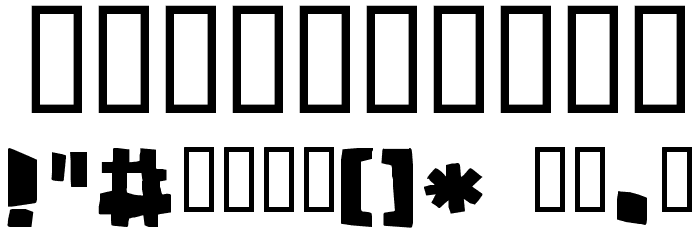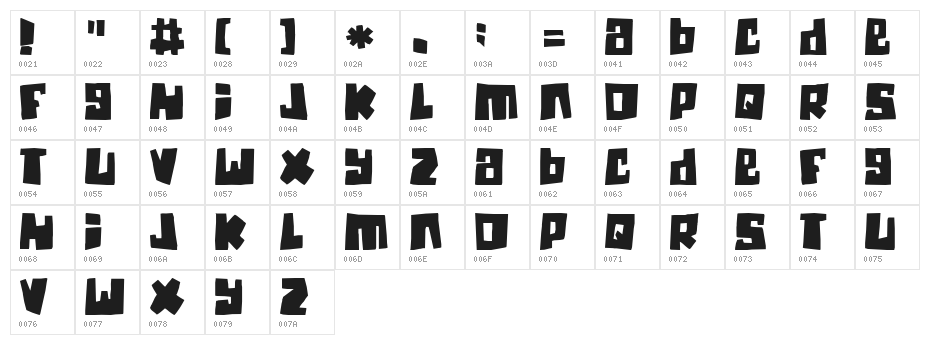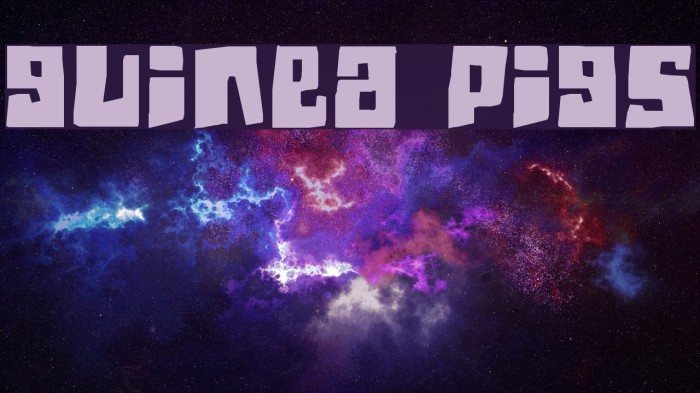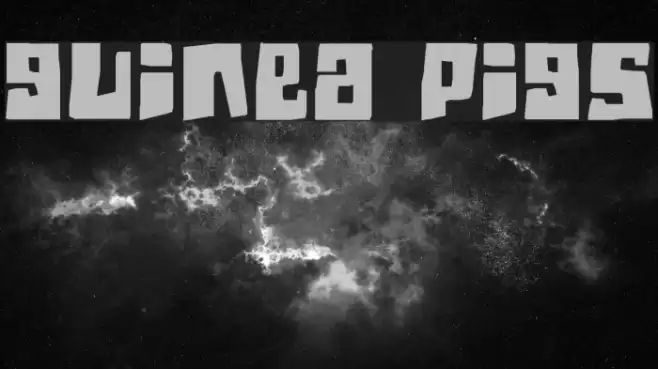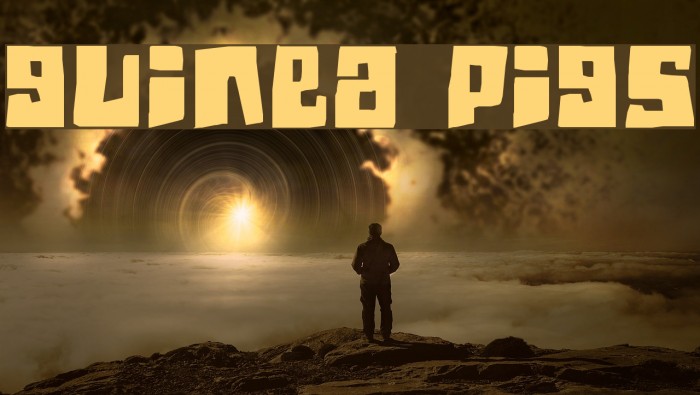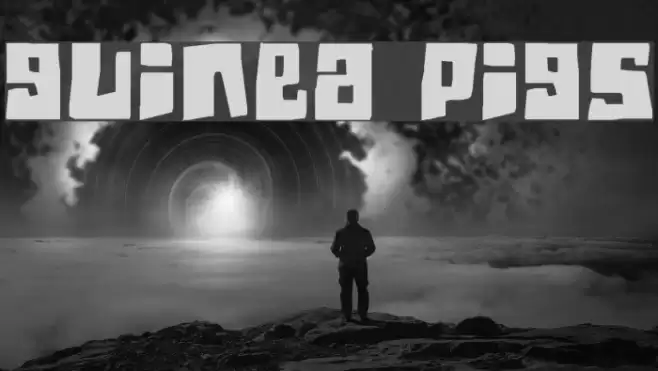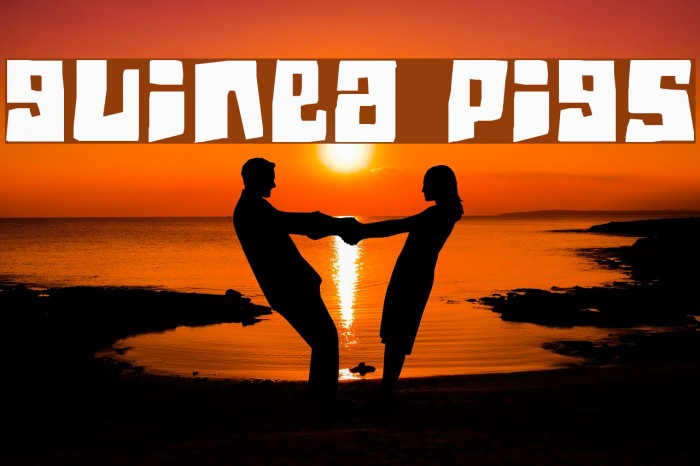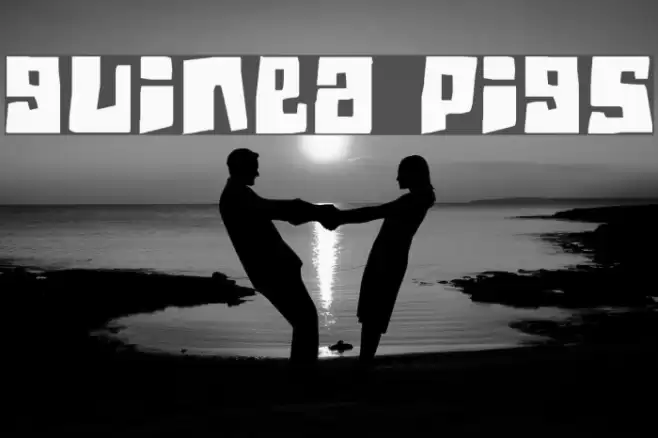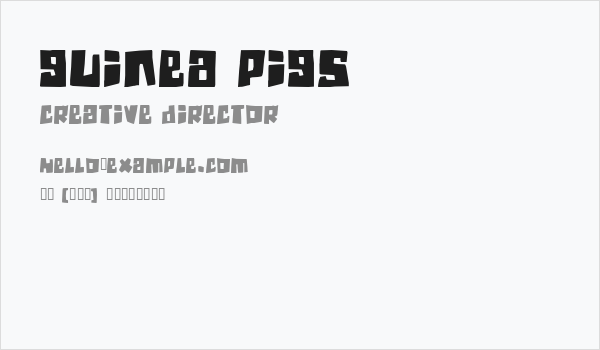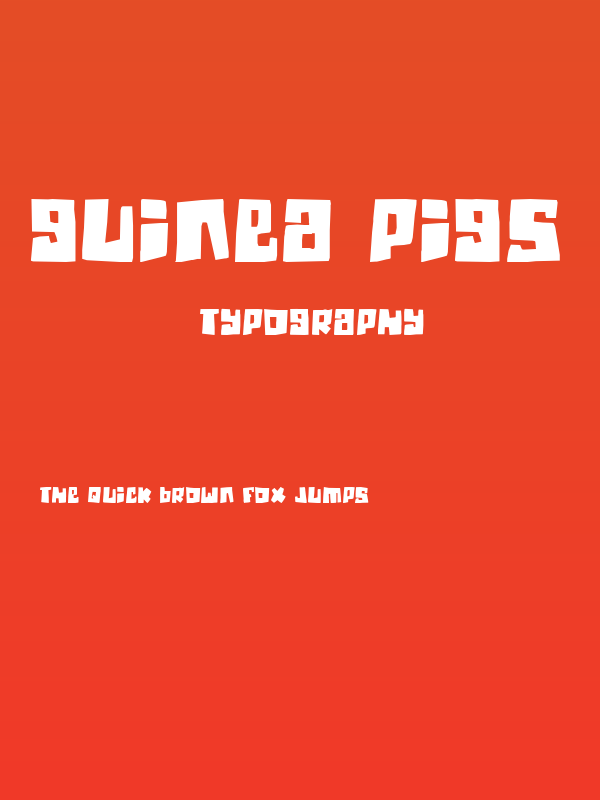
Guinea pigs Font
Guinea pigs Description
This font features a bold and playful design with a distinctly irregular and chunky appearance. Each character is uniquely shaped, giving the font a lively and dynamic feel. The uppercase and lowercase letters maintain a consistent style, with exaggerated curves and angles that create a sense of movement. The numbers are similarly styled, with a blocky form that matches the letters. Special characters are included, adding versatility to the font. The overall aesthetic is fun and informal, making it suitable for creative and casual projects.
Overall StylePlayful, Fun, Informal
Proposed ProjectsIdeal for children's books, playful branding, posters, and creative design projects.